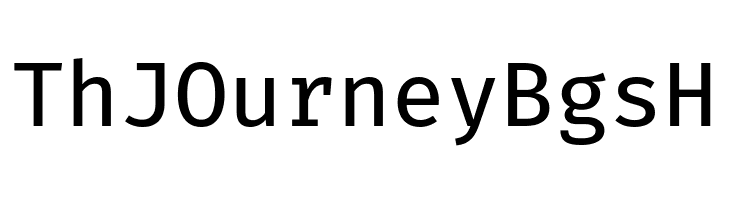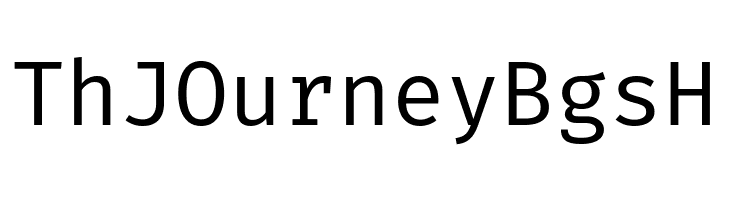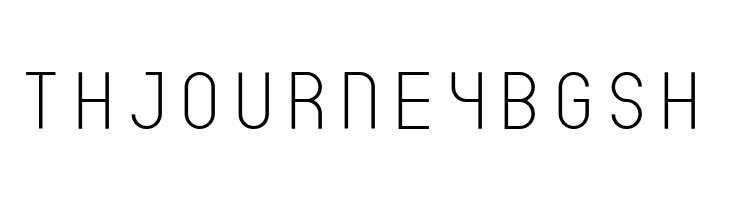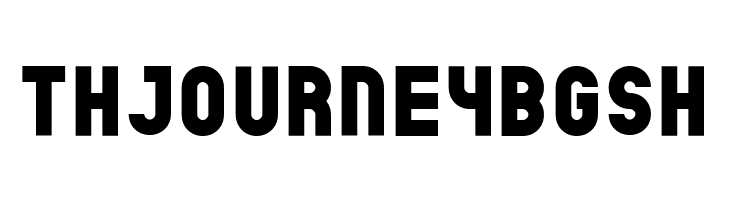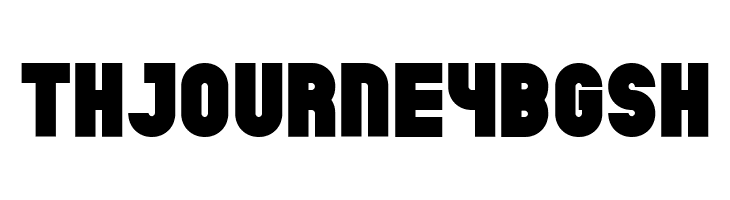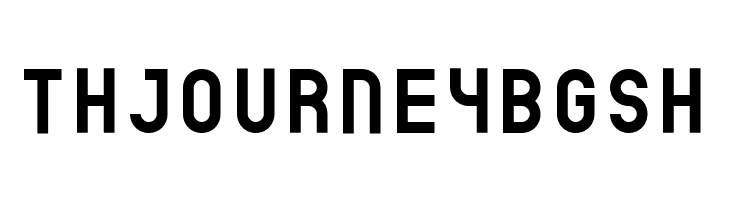
A modern, monospaced font designed for clarity and readability in coding.
A modern monospaced font designed for coding with clear, distinct characters.
A monospaced font with geometric shapes, ideal for coding.
A clean, modern monospaced font ideal for coding and technical documentation.
A bold, monospaced font designed for clarity and readability, ideal for coding.
A modern, monospaced font with a clean and minimalist design.
A bold, monospaced font with a modern and functional design.
A bold, monospaced font with thick, uniform strokes and a geometric style.
A modern, monospaced font with geometric precision and rounded edges.
A bold, monospaced font with a modern, geometric style.